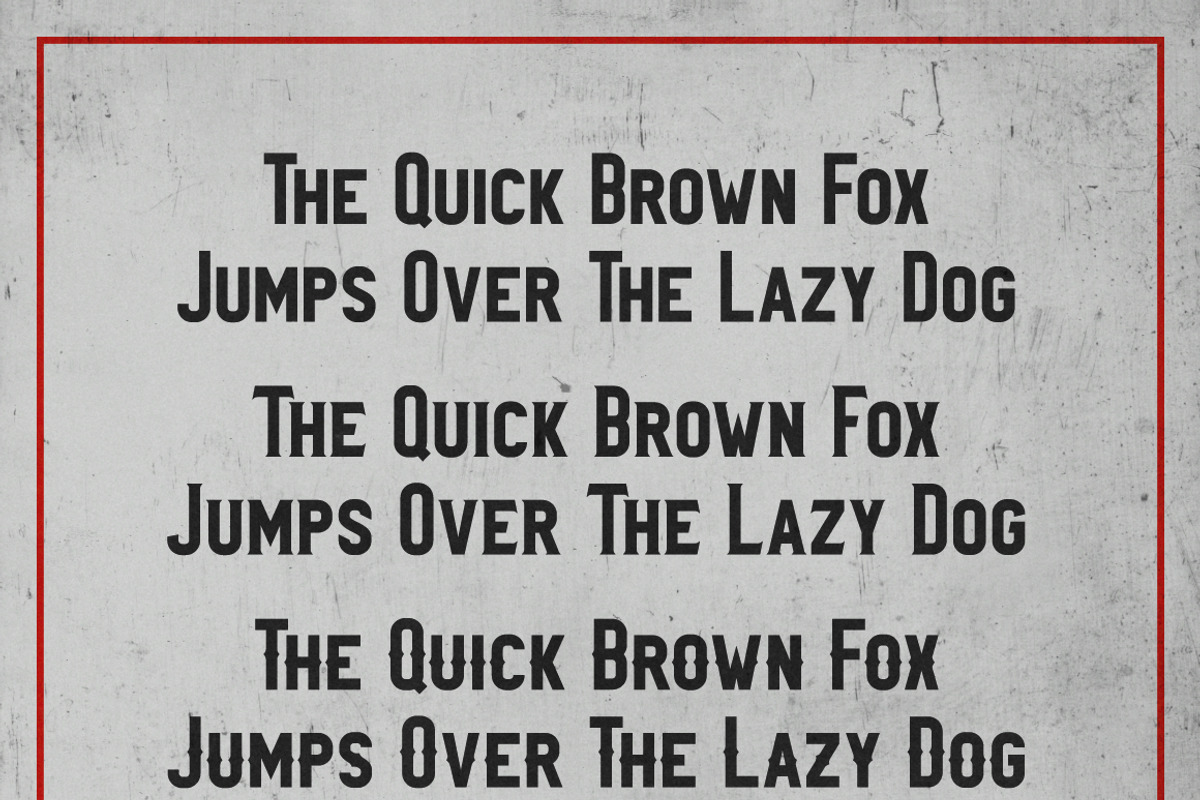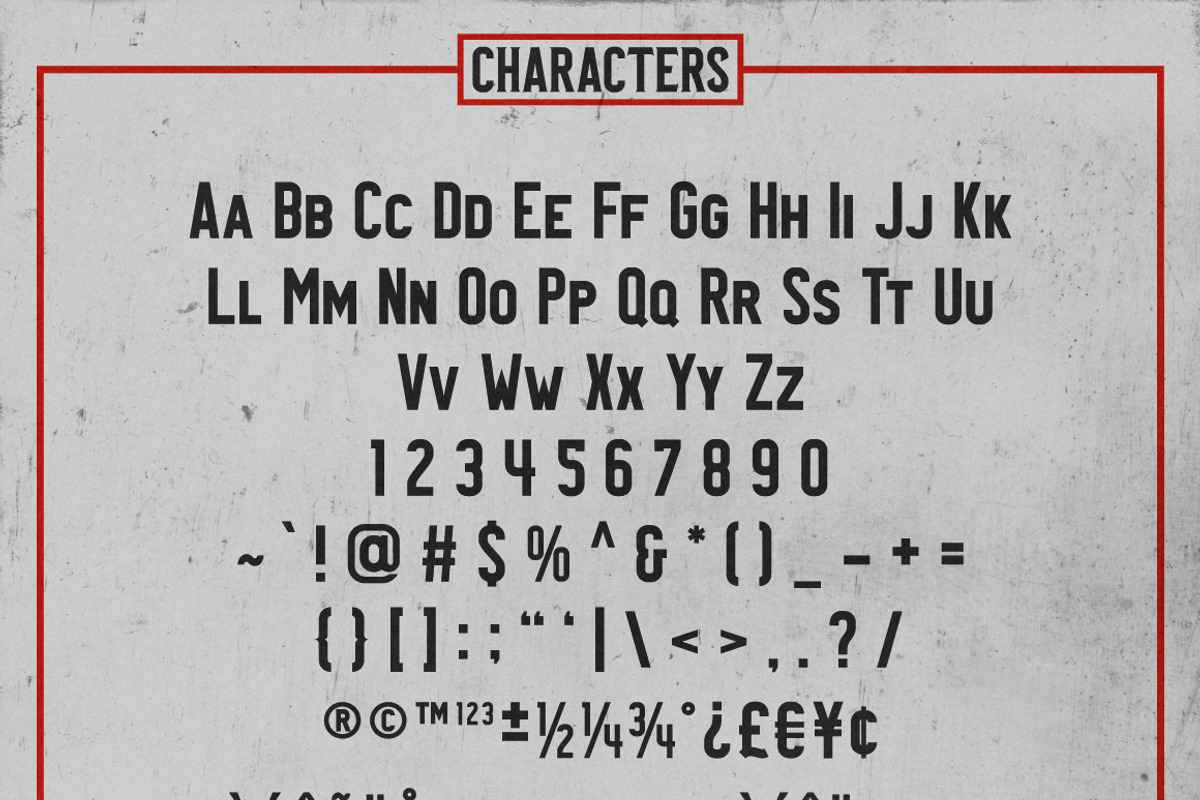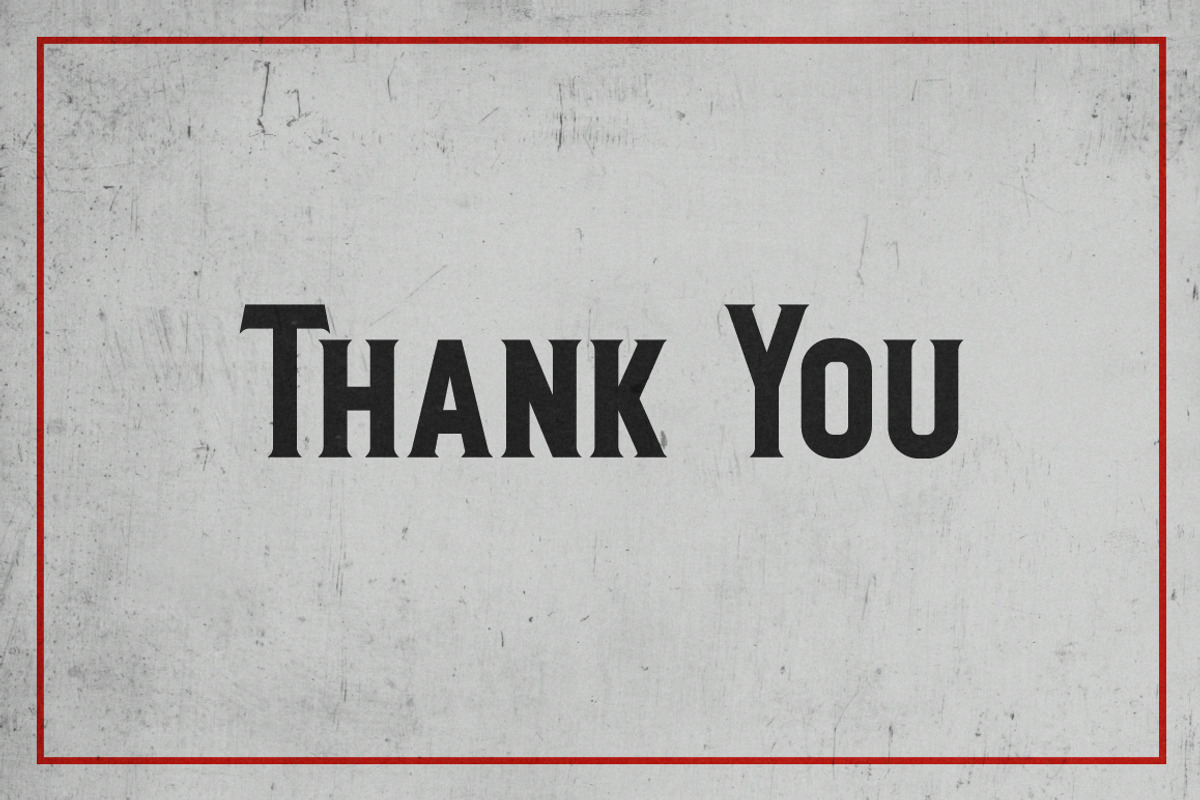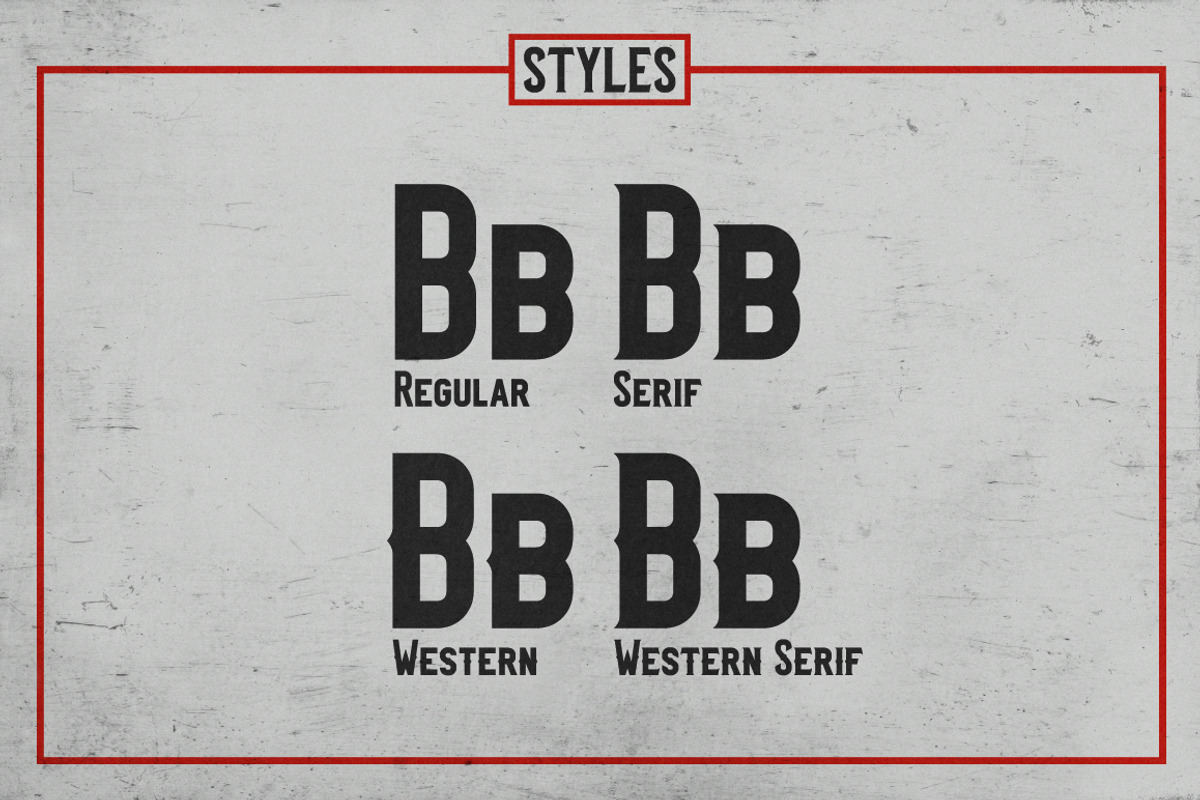
Barnhouse Typeface
Barnhouse Typeface by Nunu Tjokro is a font selected for branding, posters, packaging, typography.
- It contains 194 glyphs character comes with caps, small caps, numeral & punctuation, and standard accented characters.
- Barnhouse Regular Regular
- Barnhouse Serif Regular
- Barnhouse Western Regular
- Barnhouse Western Serif Regular
Barnhouse Typeface by Nunu Tjokro fits naturally into Branding, posters, packaging, typography.